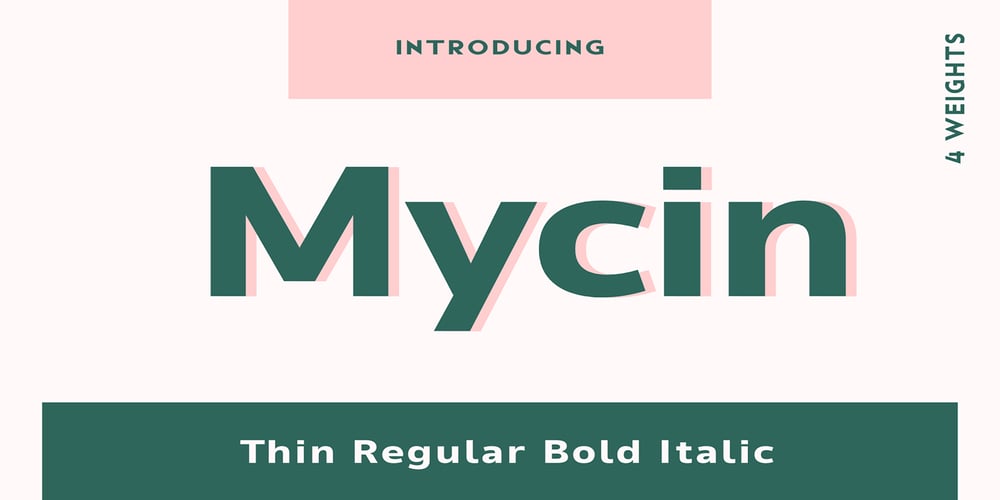
Mycin Font Family was designed by Nancy Mazzei and published by Dream Font. Mycin contains 4 styles and family package options. Introducing Mycin a sleek and modern sans-serif font family inspired by the friendly elegance of Sans. With gently rounded edges and open, inviting letterforms, Mycin is designed for clarity, legibility, and visual comfort in a wide variety of creative projects. The font comes in 4 versatile styles—from Thin to Bold Italic—making it ideal for branding, editorial design, UI/UX, advertising, and multilingual text. Let Mycin transform your creative vision from intangible to tangible with ease and sophistication.